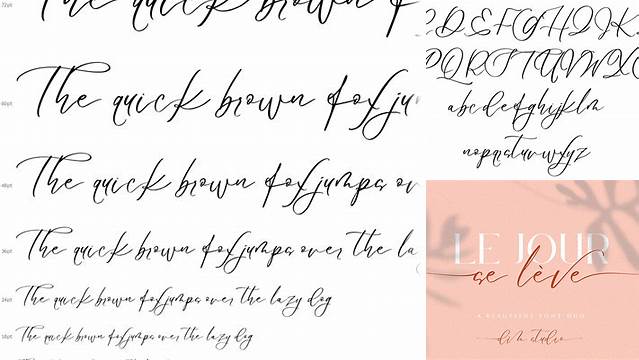
What Makes Le Jour Script So Special?
Le Jour Script isn't just any font; it's a statement. It's designed with a graceful flow and a touch of sophistication that makes it perfect for various design needs. The font's calligraphic style, with its elegant strokes and connections, brings a sense of artistry to any project. Its versatility allows it to be used in a variety of contexts, from branding to wedding invitations. This is why the Le Jour Script free font download has become such a popular search query, and for good reason! This font has gained popularity in various applications due to its distinctive look and adaptable nature, which enhances design projects. Let's explore its key features and the reasons behind its popularity.
Firstly, the Le Jour Script free font is renowned for its beautiful, flowing letterforms. The design emphasizes seamless connections between letters, providing a continuous, organic appearance that captivates viewers. The font’s elegant loops and delicate curves contribute to an overall sense of refinement, making any text look visually appealing. The sophisticated design is great for logos, headlines, or any text that needs to project elegance and class. Also, its readability is well-maintained, even with the decorative aspects, which enhances its practicality in design. The font's carefully considered design ensures it looks beautiful and is easy to read. This is a crucial aspect that makes it suitable for various applications. Its adaptability allows you to use it in many projects, each with its own unique look and feel.
Secondly, the Le Jour Script free download also offers considerable versatility. It is suitable for various design projects, including personal and commercial work. The adaptability ensures it suits different creative requirements. This adaptability is extremely valuable for designers who need a versatile font for several projects. Le Jour Script provides a stylish option for any design task, from wedding invitations to brand logos. Its capability to blend seamlessly into different design aesthetics makes it a great choice. The font can effortlessly adapt to various projects, enhancing their aesthetic appeal. The versatility of the Le Jour Script font allows designers to experiment with different design scenarios. With its design and adaptability, the font caters to a broad range of design requirements, enhancing its appeal. The flexibility ensures that it is appropriate for both personal and commercial projects, making it an essential tool for designers. The use of this font allows designers to implement their artistic vision, bringing their ideas to life. This combination allows it to be an important component in any designer's toolkit.
Finally, the design offers excellent visual appeal. The design's sophisticated style makes it very visually attractive, making it very striking when used in any design. The elegant letterforms draw attention and add a luxurious feel to any project. Whether used in print or digital media, the aesthetic beauty of Le Jour Script is sure to improve the overall design. Its visual attractiveness contributes to its effectiveness in enhancing a project's look. The stylish script font will help any project stand out. The appearance of Le Jour Script enhances the overall aesthetics, making it a favorite for anyone looking to make their design stand out. The use of this font in a project makes it visually appealing and enhances its appeal. This focus ensures that Le Jour Script adds an extra touch of elegance to any design. The font enhances the visual aspects of a project, making it more memorable. This capability makes it a good choice for applications where aesthetics are key.